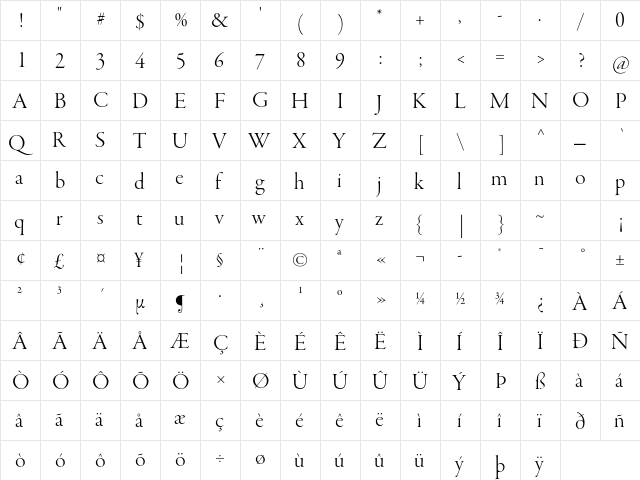
Garamond Premier Pro Light Display
| Designer | Robert Slimbach |
Design Context for Garamond Premier Pro Typeface
Garamond Premier Pro is built around its visual character rather than neutral utility — its distinctive forms are designed to make an impression at display sizes. Its slender proportions lend an understated elegance to any composition.
Font Pairing: Pair with a clean neutral sans-serif for body copy to let Garamond Premier Pro's character lead without overwhelming the composition.
Pro Tip: Treat Garamond Premier Pro as the centrepiece of your typographic hierarchy. One strong heading set in a decorative face can carry an entire layout.